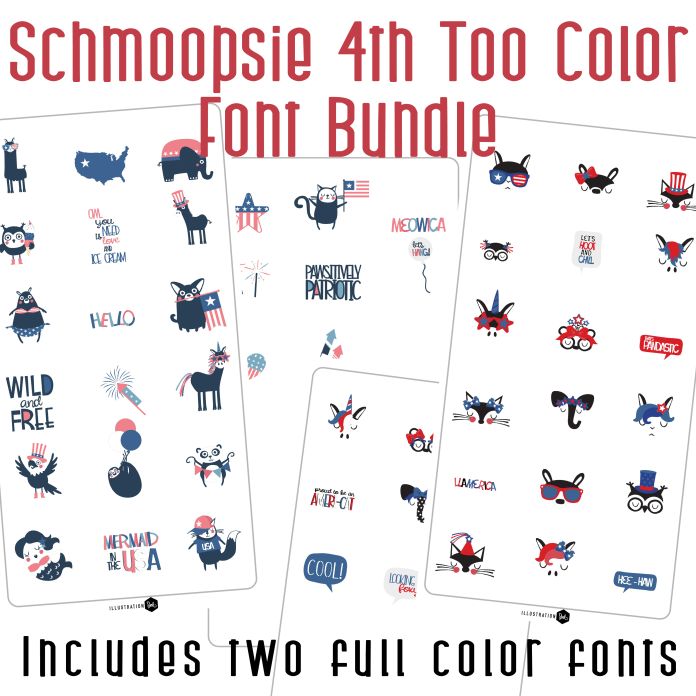
This bundle includes two full color dingbat fonts for one low price! With two dingbats you get 52 total images with 26 whimsical patriotic animals, puns and imagery, adn 26 patriotic animal faces. Both color fonts are perfect for Independence Day cards, crafts, gifts, decor, classrooms, planner stickers, scrap book pages and more!